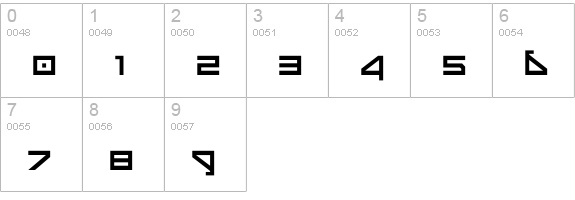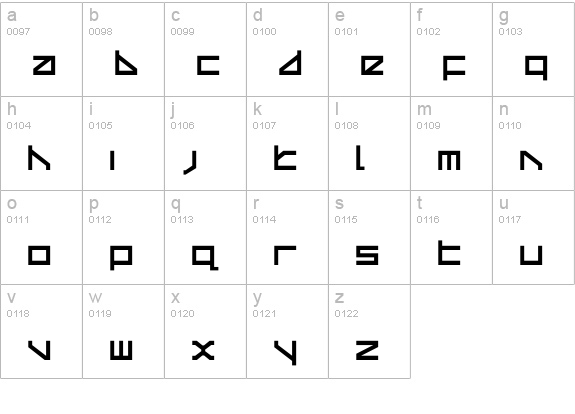
Delta Ray font is a stunning and versatile typeface that exudes elegance and sophistication. With its sleek lines and modern design, Delta Ray is perfect for a wide range of projects, from branding to editorial design. This font offers a unique blend of classic and contemporary elements, making it a standout choice for any creative endeavor. One of the best things about Delta Ray font is that it is completely free to download. You can easily access this beautiful typeface at FontsMarket.com, where you can instantly add a touch of style and professionalism to your projects without any cost. Don't miss out on the opportunity to enhance your designs with the timeless beauty of Delta Ray font - download it today and elevate your work to the next level.